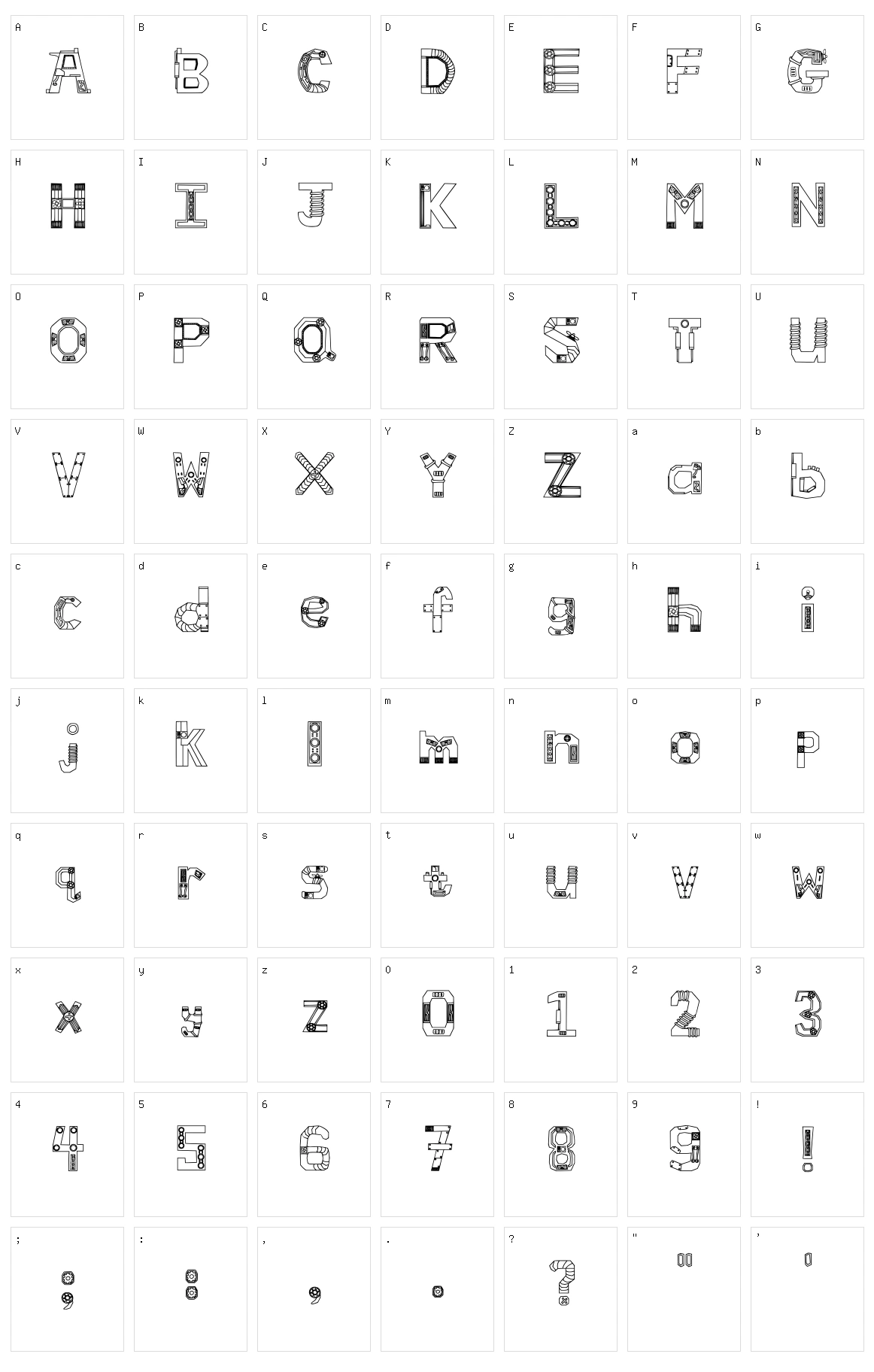
The free font Steampunk Machinery is carefully designed by Aliff Zamri, showcasing a thoughtful balance of creativity and usability and falls under the Decorative font style. When you download the ZIP file, it contains only 77.46 KB of font files, making it lightweight and quick to download. Please review the license details below to understand permitted usage and distribution rights. If license information is not available, we recommend using this font for personal projects only or contacting the author directly for commercial usage permissions.